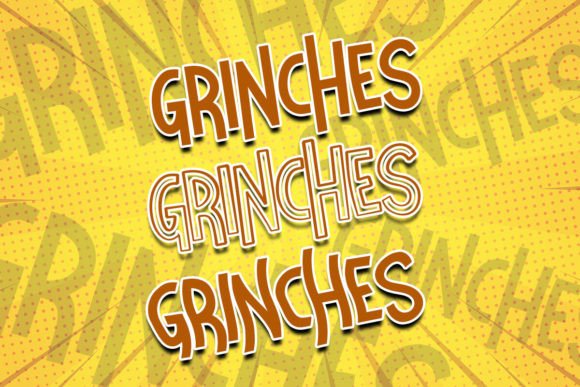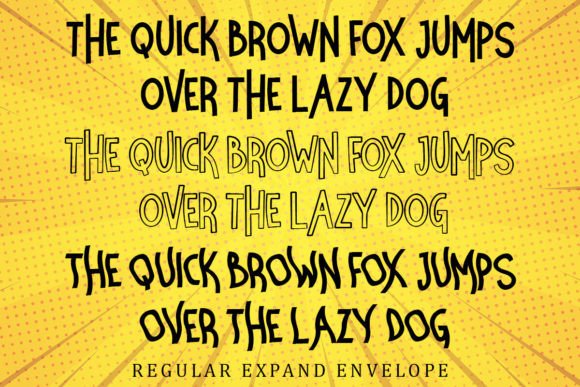
The Grinch Who Stole My Design Worries: A Deep Dive into Grinches Font
I’ll never forget the time I was working on a festive holiday project, and my client requested a font that embodied playfulness and authenticity. I scoured the internet, trying out font after font, but nothing seemed quite right. That was until I stumbled upon Grinches Font. It was like a breath of fresh air – whimsical, fun, and perfect for the job. In this article, I’ll share my love for Grinches Font, its features, and how to make the most of it in your designs.
What I Love About Grinches Font
- ✨ Playful and authentic vibe that’s perfect for festive designs
- ✅ Highly legible, even at smaller sizes
- 💫 Works well for both digital and print projects
- 🎉 Extensive character set, including glyphs and stylistic alternates
While Grinches Font is an excellent choice, there are a few things to keep in mind:
- ⚠️ May not be suitable for very formal or professional designs
- 🤔 Some users may find the font a bit too bold or attention-seeking
Grinches Font was designed with the intention of capturing the playful spirit of the holiday season. The designer, inspired by the mischievous Grinch, aimed to create a font that was both fun and authentic. The result is a font that embodies the whimsy and playfulness of the holiday season, perfect for designers, crafters, and creative hobbyists.
| Font Name | Grinches Font |
| Author | Letter Muray |
Q: What type of projects is Grinches Font best suited for?
A: Grinches Font is perfect for festive designs, such as holiday cards, decorations, and seasonal branding.
Q: Is Grinches Font available in different weights or styles?
A: Grinches Font may be available in different weights or styles, but this will depend on the specific font package or vendor.